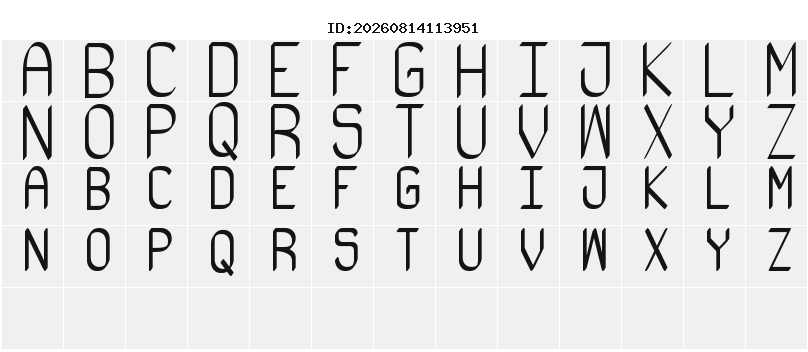
Stupenda ST Preview
• Font Name: Stupenda ST
• Font ID: Stupenda ST:Version 1.00
• Full Font Name: Stupenda ST
• Version: Version 1.00 April 22, 2014, initial release
• PostScript Name: StupendaST
About Stupenda ST.ttf
Stupenda ST.ttf is a modern, elegant sans-serif font designed for ultimate readability and visual harmony. Perfect for branding, headlines, web design, and print materials.